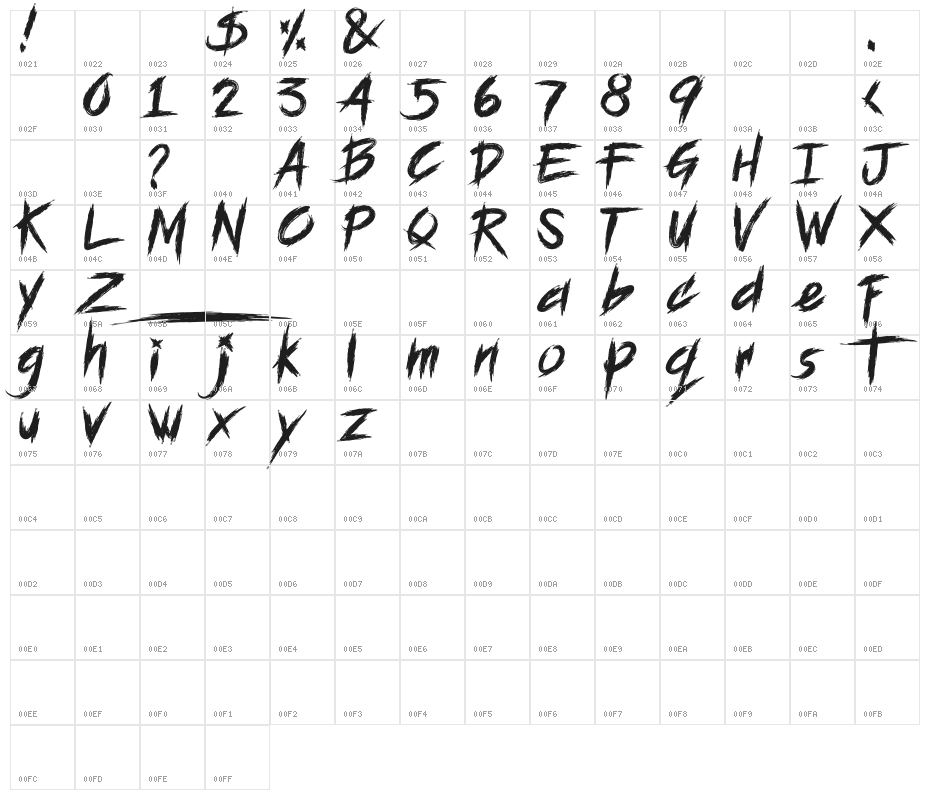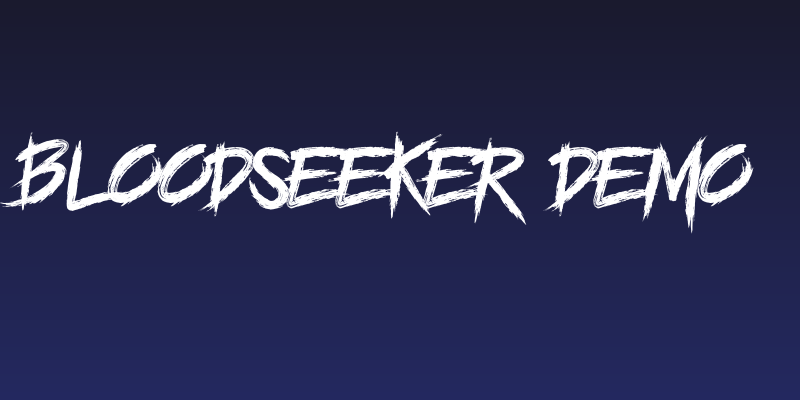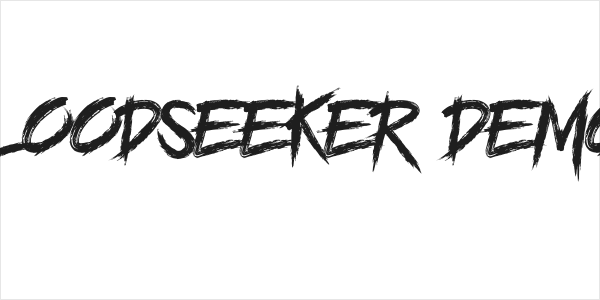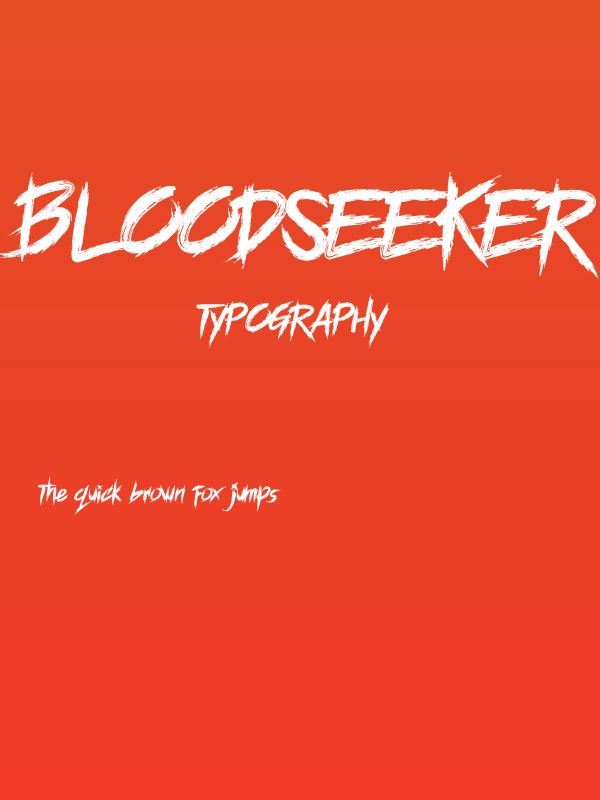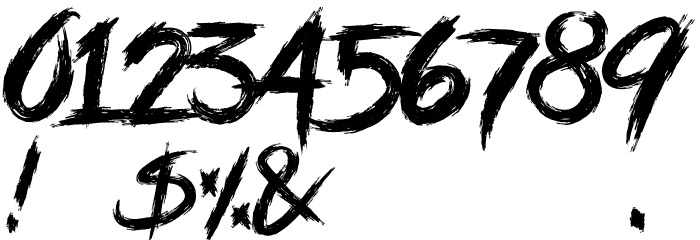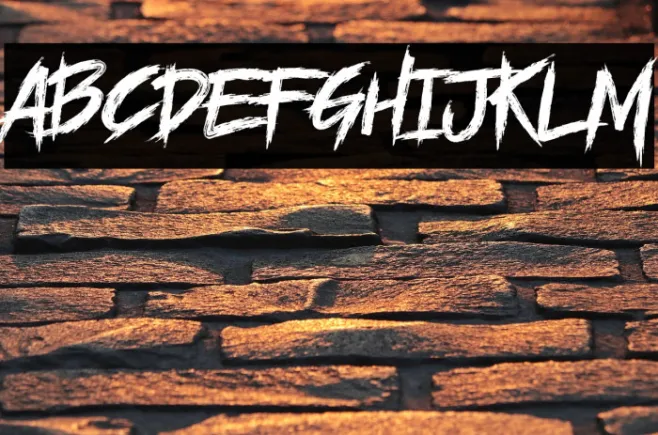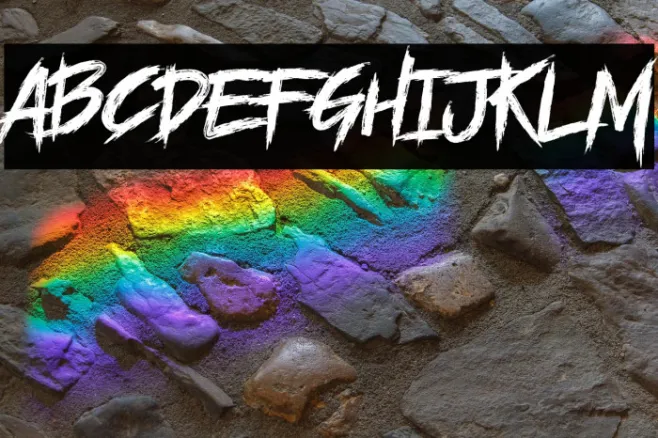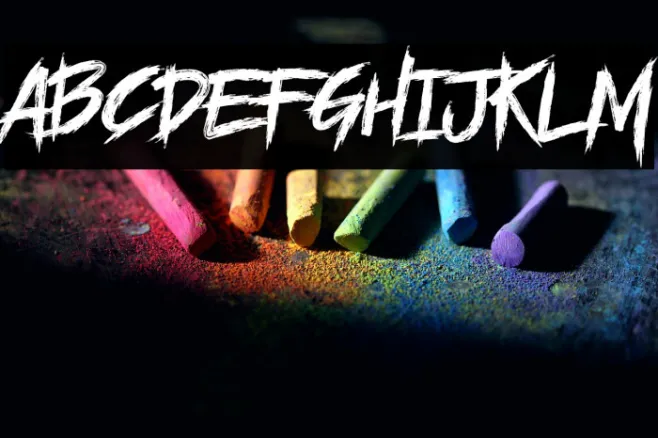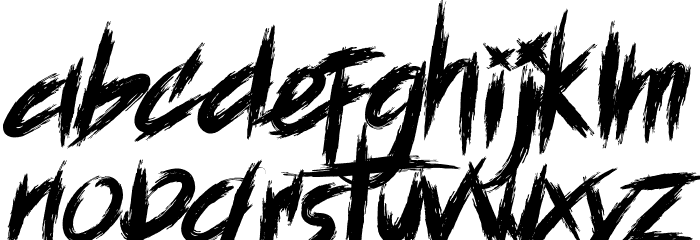
BLOODSEEKER DEMO Font
BLOODSEEKER DEMO Description
This font features a bold, aggressive style with sharp, jagged edges that give it a raw, energetic appearance. The strokes are uneven and dynamic, resembling brush strokes or scratches, which adds a sense of movement and intensity. The uppercase and lowercase letters maintain a consistent style, with exaggerated angles and a slightly chaotic feel. Numbers and special characters follow the same design principles, ensuring a cohesive look across all elements. This font is ideal for projects that require a dramatic and impactful visual statement.
| Overall Style | Modern, Aggressive |
| Proposed Projects | Perfect for horror-themed designs, music album covers, posters, and video game graphics. |